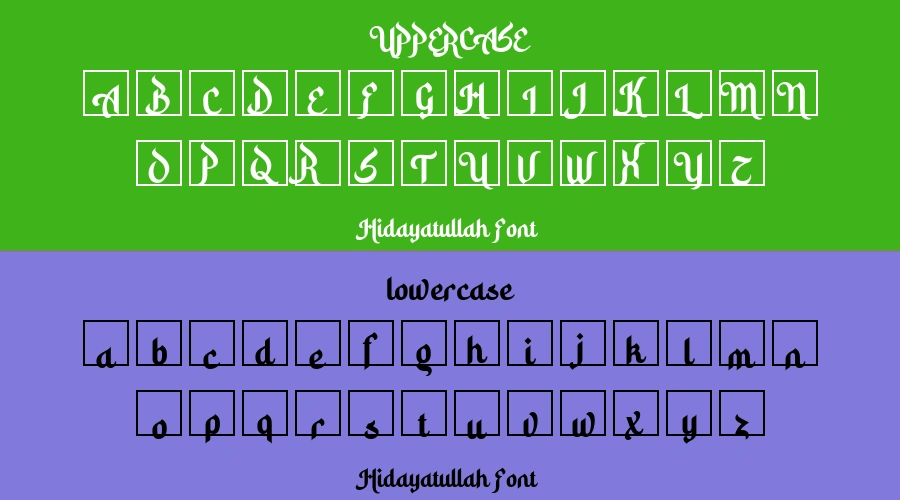
About Hidayatullah Font
Designed with precision, Hidayatullah Font merges ink traps with consistency in every character. This versatility makes it particularly effective for editorial design, where functionality and academic acceptance directly impact communication quality. Each letterform demonstrates meticulous craftsmanship.
Technical excellence shines through elements like ink flow effects and lining figures, enhancing typographic versatility. In display applications settings, Hidayatullah Font proves its worth through superior large format impact. The thoughtful execution of terminal style and scholarly tradition ensures professional results.
Hidayatullah Font |